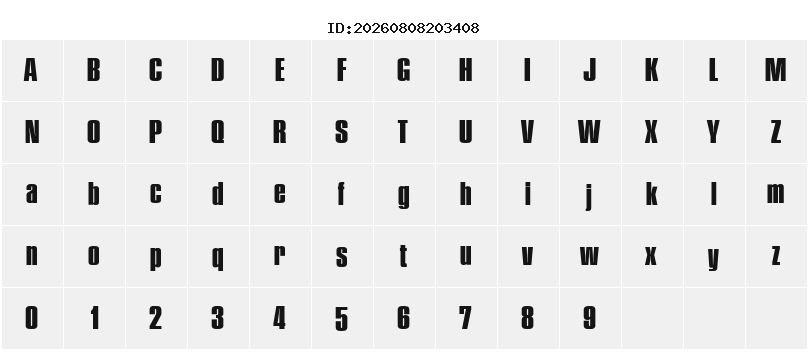
• Font Name: PlaketteSerial-Xbold
• Designer: SoftMaker Software GmbH
About PlaketteSerial-Xbold.ttf
PlaketteSerial-Xbold.ttf is a modern, elegant sans-serif font designed for ultimate readability and visual harmony. Perfect for branding, headlines, web design, and print materials.